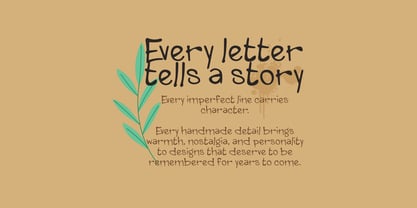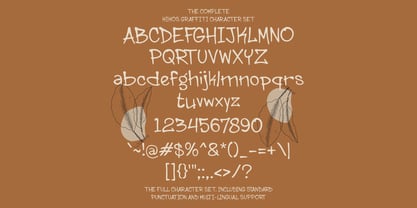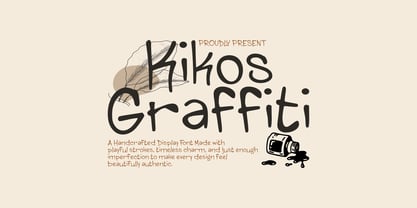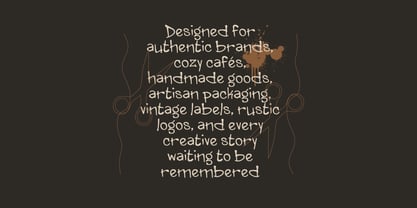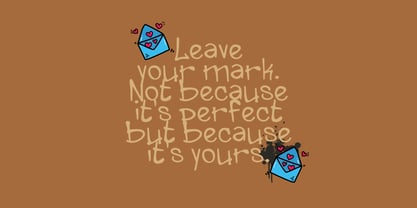
Kikos Graffiti
by Mei Suseno
The Kikos Graffiti Font Family was designed by Wahyu Eka Prasetya, Mei Suseno and published by Mei Suseno. Kikos Graffiti contains 2 styles and family package options. More about this family
Kikos Graffiti is a playful handmade display font inspired by casual marker lettering and vintage graffiti aesthetics. Featuring smooth curves, rounded edges, and an authentic handwritten feel, this font adds warmth, personality, and charm to any creative project. Perfect for logos, branding, packaging, posters, apparel, social media, children's products, stickers, merchandise, invitations, book covers, and eye-catching headlines. Whether you're creating fun branding or nostalgic vintage-inspired designs, Kikos Graffiti delivers a bold, friendly, and memorable look that stands out effortlessly